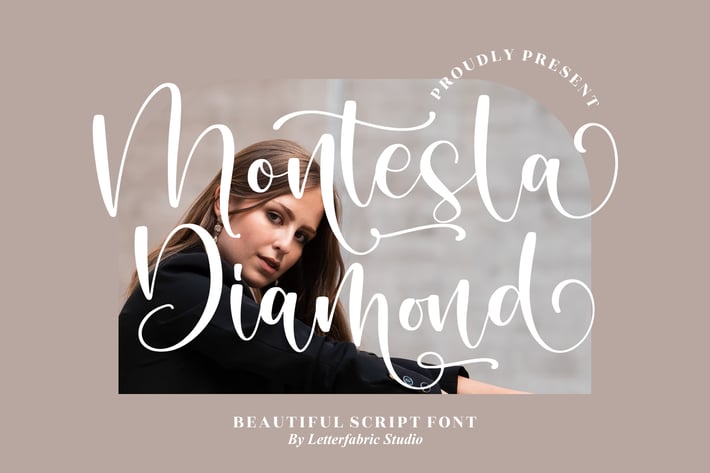
Montesla Diamond Beautiful Script Font
Montesla Diamond is a flowing, high-impact script with generous swashes and graceful curves. It balances bold, confident strokes with soft, rounded terminals, giving your text a luxe, hand-lettered feel that stands out on both print and digital designs.
+ Elegant, sweeping letterforms with a natural handwritten rhythm
+ Large ascenders/descenders for dramatic, stylish titles
+ Smooth connections for clean, readable word shapes
+ Works well at display sizes and still holds detail at smaller captions
Perfect for:
+ Wedding invitations & stationery
+ Signature logos & personal branding
+ Beauty, fashion, and boutique packaging
+ Social media posts & headers
+ Quote posters & wall art
+ Event flyers & save-the-date cards
+ Photography watermarks
Add a touch of polished drama—let Montesla Diamond do the talking.